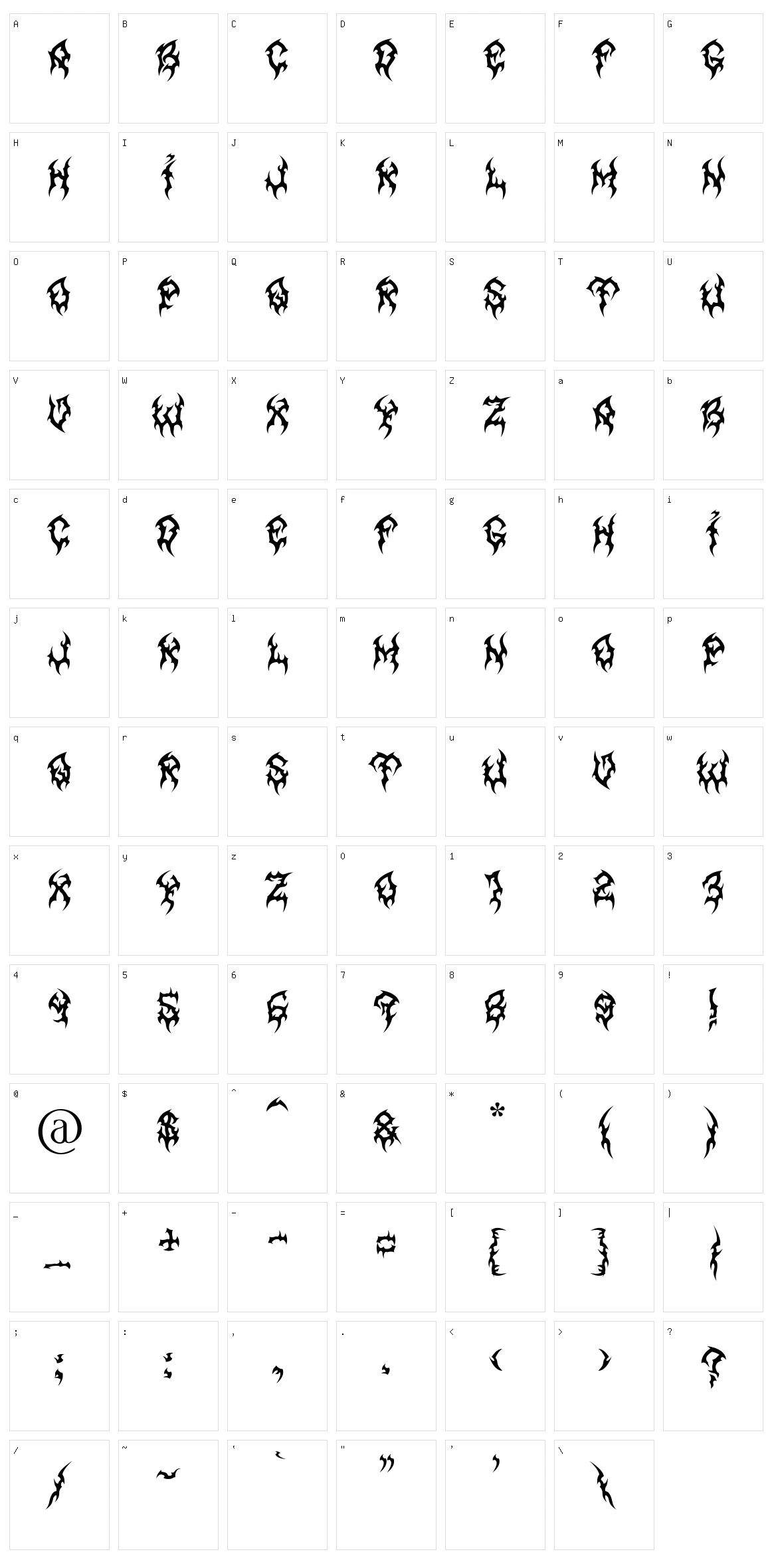
MB Forever Raw
Designed by: Irina ModBlackmoon
MB Forever Raw - Horror, Metalhead Font by ModBlackmoon. [Hand-drawing + Photoshop]
Incl. English, European letters and Numbers. May be scaled to extra large size without quality loss.
This font it something like a conclusion of what i've done before in my Arcane, Gothic Dawn and Graveyard Designs fonts, so that's why it's free. That's some kind of next level of this style - with higher quality, smooth curves... Enjoy.
Designed: March 2012.
Author: ModBlackmoon